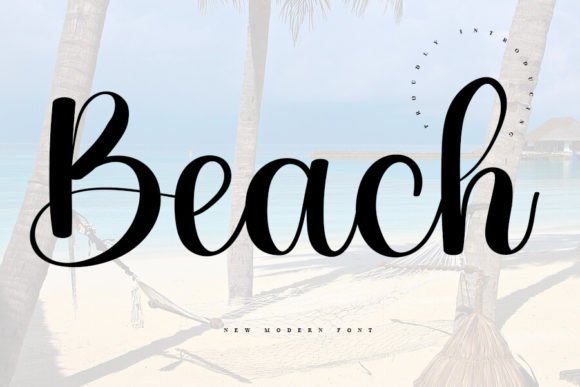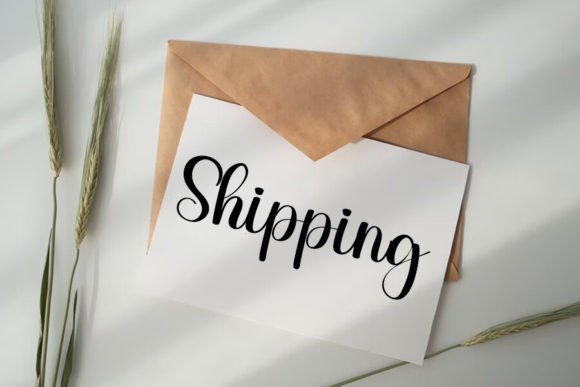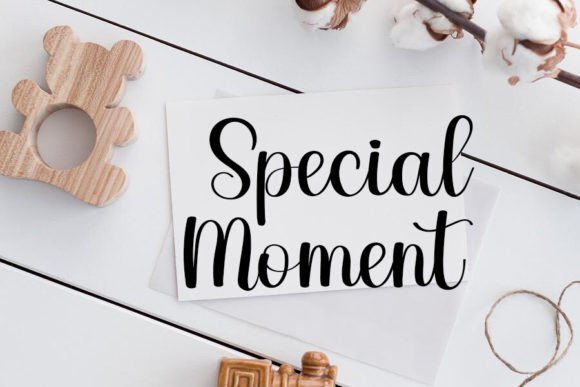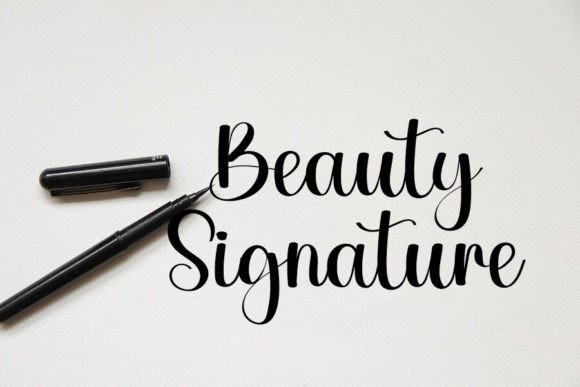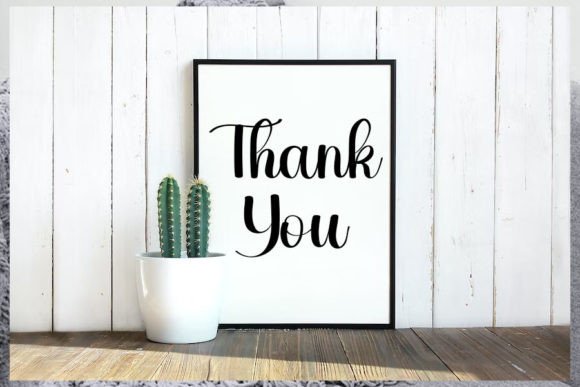
Beach Font
Introducing Beach, an elegantly unique font that breathes freshness into every design. Perfectly versatile, its radiance shines through in a myriad of uses, from enhancing YouTube banners to elevating wedding invitations with an added touch of sophistication. This font infuses distinct charm into logo mockups, ID cards, flyers, and crafts. Every curve and contour of the Beach font encapsulates simplicity and uniqueness, promising to drive your business forward and fuel its evolution. Let the Beach font be the secret ingredient that brings your creative designs to life!